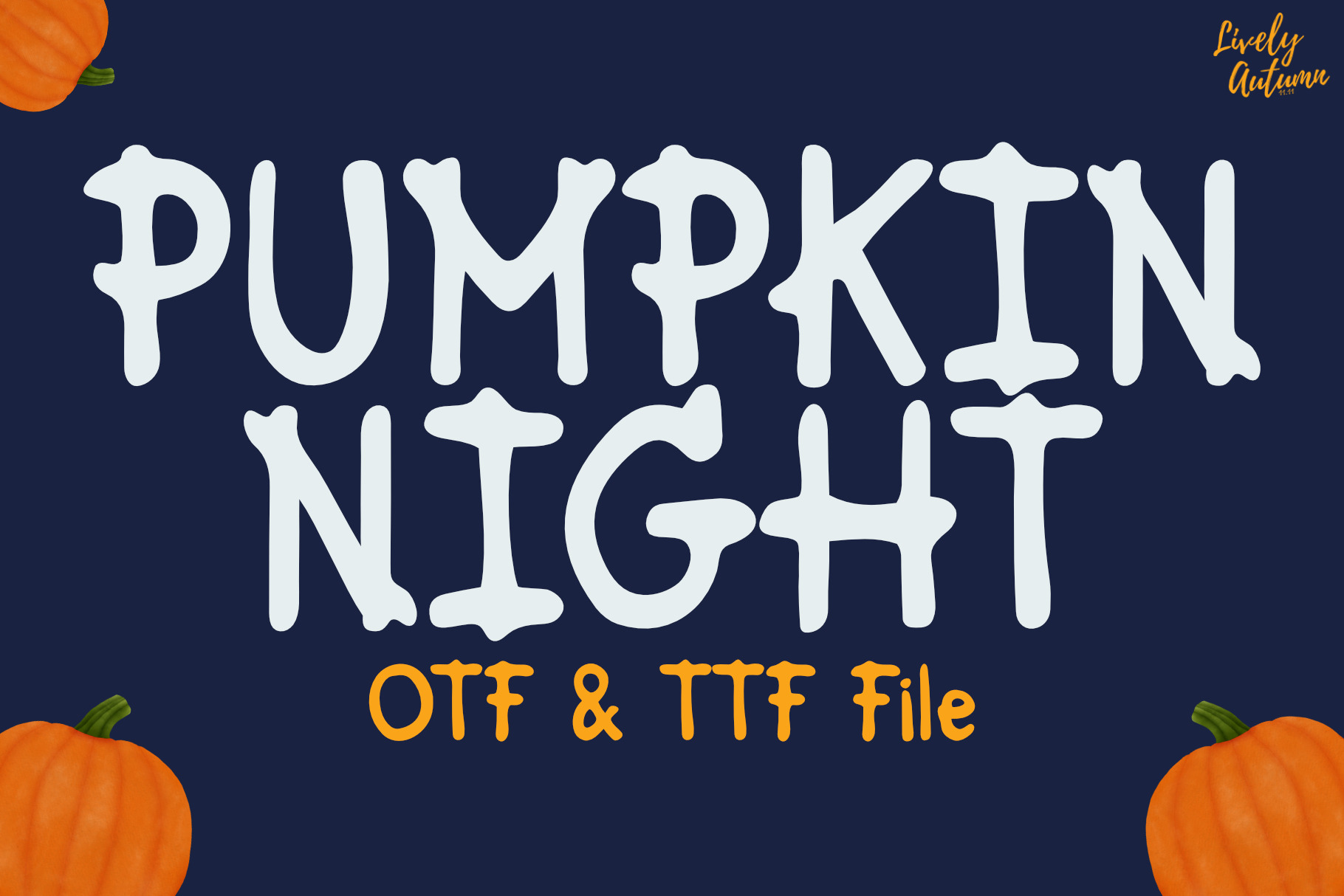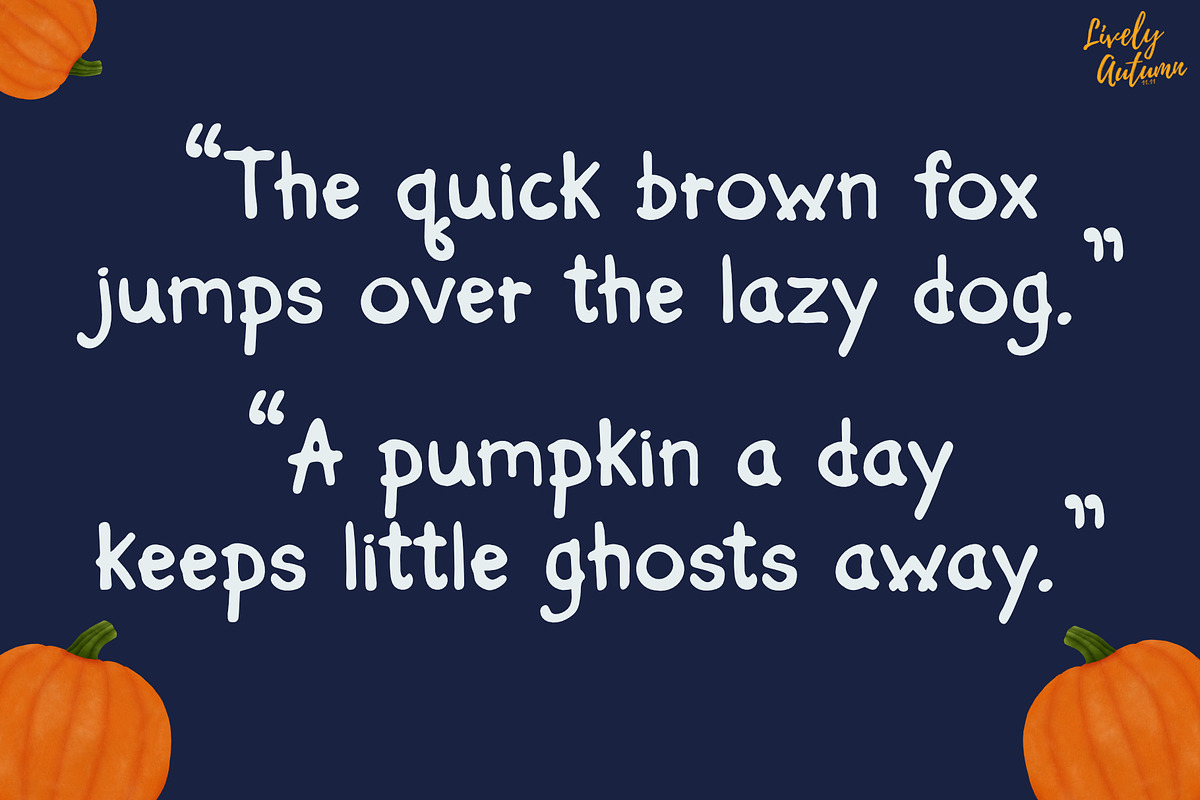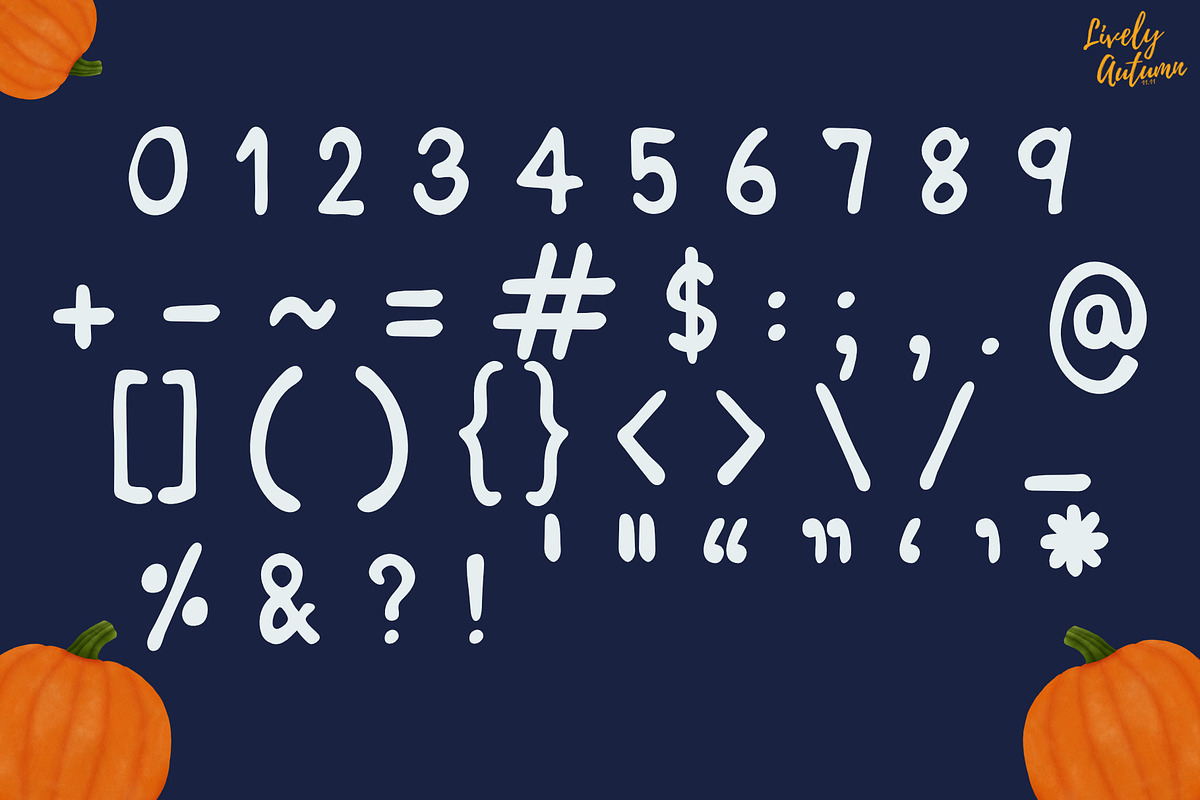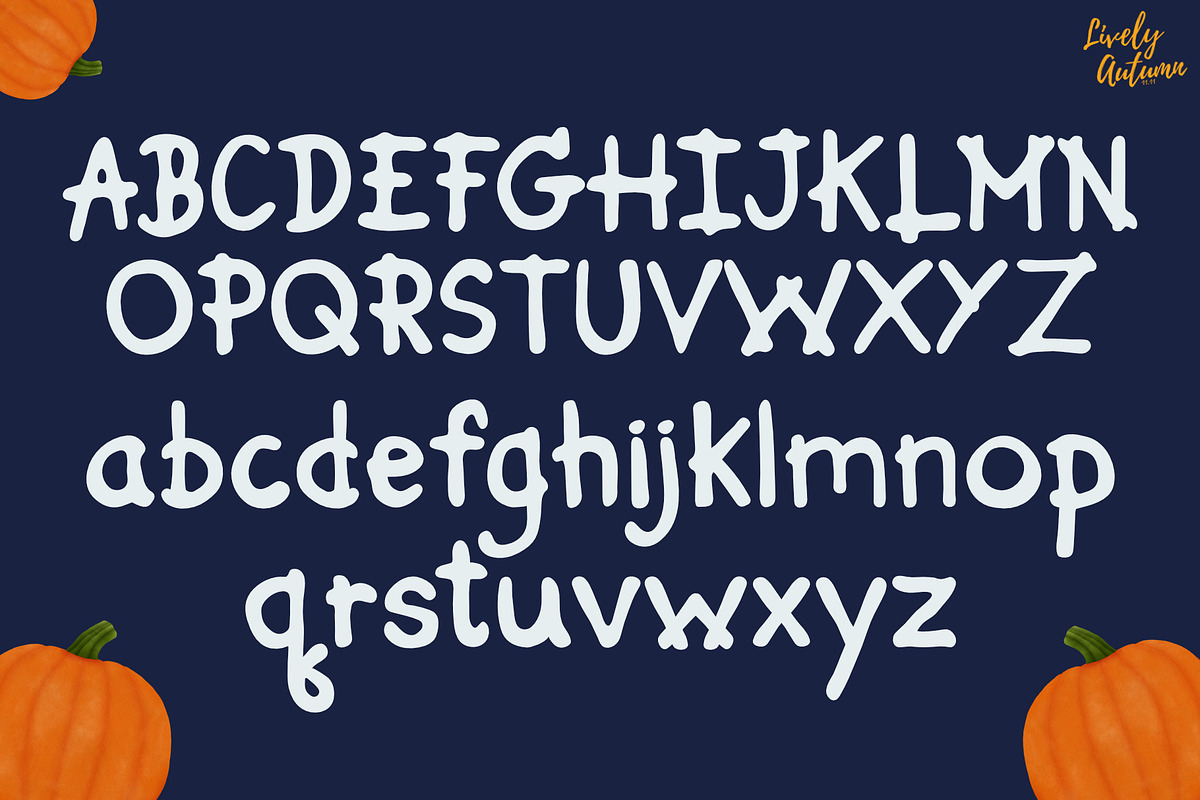
Pumpkin Night | Handwriting font
Pumpkin Night Font is a Sans Serif handwritten font. Perfect for your halloween theme project, personal projects, and various projects. From invitations to posters, social media graphics, journals, and much more.
- Font includes: uppercase, lowercase, numbers, and punctuation.